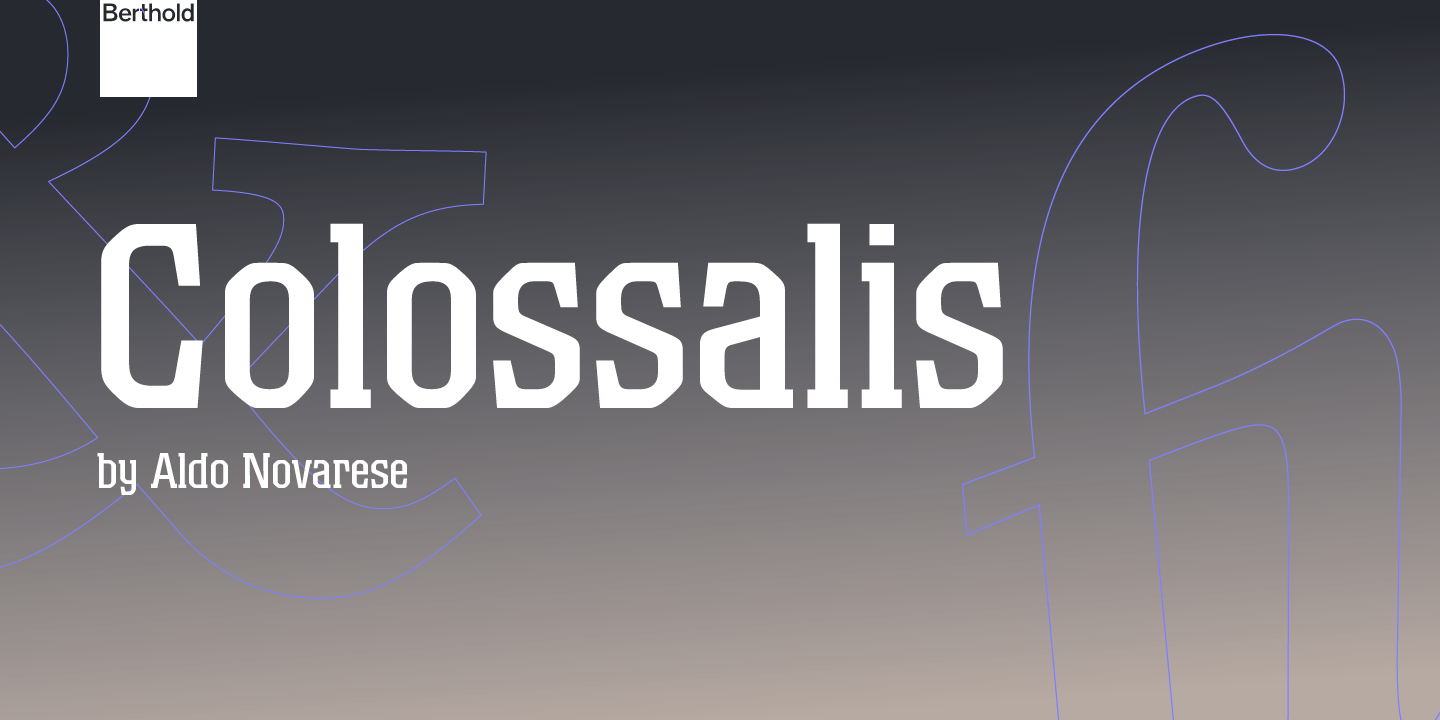
Colossalis Font is a monumental and incredibly impactful typeface, engineered for maximum presence and a commanding aesthetic. This powerful font is perfectly suited for projects that demand a bold, authoritative, and truly unforgettable visual statement. Imagine Colossalis Font dominating the headlines of movie posters, providing unmissable branding for major sporting events, or adding an undeniable sense of strength to architectural firm logos. It excels in large-format displays like billboards and exhibition graphics, and is ideal for high-impact advertising campaigns, powerful editorial titles, and any design where conveying grandeur and solidity is paramount. Its robust, often block-like forms and unwavering presence also make it an excellent choice for album art, video game titles, and branding that aims for a heroic or epic scale.
What makes Colossalis Font so exciting is its sheer visual weight and its ability to immediately convey power and significance. It strips away unnecessary detail to deliver a message with unparalleled force and gravitas. This font projects an aura of unwavering confidence, enduring strength, and monumental impact, making it an excellent choice for brands and individuals who want to communicate a sense of unshakeable authority and timeless importance. Colossalis Font truly performs as a versatile workhorse for impactful typography, offering both aesthetic integrity and robust functionality that can elevate any project, from serious corporate communications to awe-inspiring public art.
Colossalis Font typically focuses on its dramatic display characteristics, often available in a standard regular weight, possibly with a few complementary bold or condensed variations to enhance its powerful nature. While it may not feature an extensive range of weights like a traditional text font, its strength lies in the singular power and consistent, formidable design of its primary form. Its strong strokes and often unique structural elements ensure that its distinctive appearance is maintained across various applications, making it highly effective for impactful headlines, commanding logos, and designs where a strong, artistic, and memorable visual impact is desired.